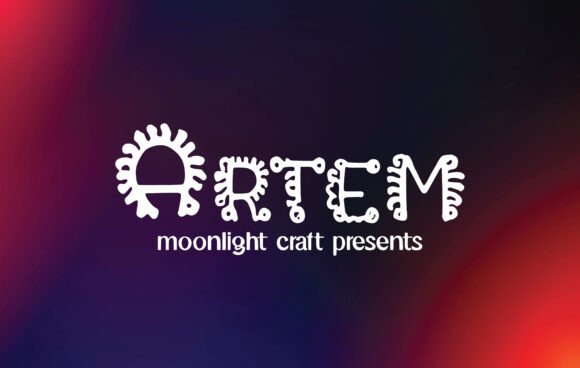
Introducing Artem Font: Elevate Your Creative Projects with Style and Legibility
In the world of typography, fonts play a crucial role in bringing creative ideas to life. Among the numerous fonts available, Artem Font stands out as a versatile and highly legible typeface designed to take your projects to new heights. Whether you’re working on magazine headlines, t-shirts, social media graphics, branding materials, wedding invitations, or cards, Artem Font is the perfect choice to add a touch of sophistication and style.
What Makes Artem Font Special?
- Legibility: Artem Font is crafted with readability in mind, making it an excellent option for both title and body text. Its clear and concise letterforms ensure that your message is conveyed effectively, regardless of the medium.
- Versatility: This font is designed to be a true favorite among designers, suitable for a wide range of applications, from print materials to digital platforms.
- Style: With Artem Font, you can add a touch of elegance and sophistication to your designs, making it perfect for projects that require a high level of creativity and flair.
Endless Possibilities: Use Cases for Artem Font
Artem Font’s versatility knows no bounds. Here are some examples of projects where this font can shine:
- Magazine Headlines: Create eye-catching titles that grab readers’ attention and set the tone for your publication.
- T-Shirts and Apparel: Design stylish and legible text for t-shirts, hoodies, and other clothing items that make a statement.
- Social Media Graphics: Elevate your social media presence with Artem Font, perfect for creating engaging posts, stories, and ads.
- Branding and Identity: Establish a strong brand identity with Artem Font, suitable for logos, business cards, and letterheads.
- Wedding Invitations and Cards: Add a touch of elegance and sophistication to your wedding invitations, greeting cards, and other stationery.
Design Tips: Getting the Most Out of Artem Font
To maximize the potential of Artem Font, consider the following design tips:
- Experiment with Font Sizes: Artem Font looks great in various font sizes, from large titles to smaller body text.
- Play with Colors: Try different color combinations to create visual interest and make your text stand out.
- Mix and Match: Combine Artem Font with other fonts to create a unique and harmonious typography.
Why Choose Artem Font?
In a world where typography plays a vital role in communication, Artem Font offers a unique combination of style, legibility, and versatility. Here are some reasons why you should consider Artem Font for your next project:
- Time-Saving: With Artem Font, you can save time and effort in selecting and pairing fonts, ensuring consistency across your designs.
- Professional Look: This font is designed to give your projects a professional and polished look, making it perfect for businesses and individuals alike.
- Creative Freedom: Artem Font provides the creative freedom to experiment with different designs, styles, and formats, allowing you to bring your ideas to life.
In conclusion, Artem Font is an exceptional typeface designed to elevate your creative projects with style and legibility. With its versatility, range of use cases, and design flexibility, this font is perfect for designers, businesses, and individuals looking to make a statement. Whether you’re working on a magazine headline, t-shirt, or social media graphic, Artem Font is the perfect choice to bring your ideas to life.